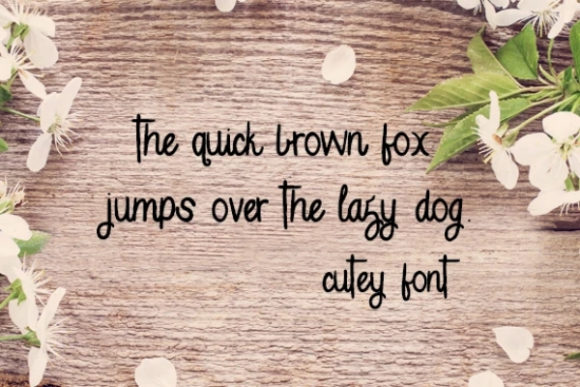
Introducing Cutey Font: Elevate Your Designs with Elegance and Whimsy
Are you a designer or crafter looking for a font that can add a touch of elegance and modernity to your projects? Look no further than Cutey Font, a beautiful handwritten font that is sure to take your designs to the next level. With its unique blend of sophistication and playfulness, Cutey Font is the perfect choice for a wide range of design projects, from branding and headings to wedding designs, invitations, signatures, logos, labels, and more.
The Characteristics of Cutey Font
Cutey Font is an elegant handwritten font with a modern feeling. Its smooth, flowing lines and delicate curves give it a sophisticated and refined look that is perfect for designs that require a touch of luxury and glamour. At the same time, its playful and whimsical feel makes it ideal for designs that need to be fun and engaging. Whether you’re looking to create a bold and eye-catching design or a more subtle and understated one, Cutey Font is the perfect choice.
What Makes Cutey Font So Versatile?
One of the things that sets Cutey Font apart from other fonts is its incredible versatility. Its unique blend of elegance and playfulness makes it suitable for a wide range of design projects, including:
• Branding: Use Cutey Font to create a memorable and impactful brand identity that will set you apart from the competition.
• Headings: Add a touch of elegance and sophistication to your headings and titles with Cutey Font.
• Wedding Designs: Create beautiful and romantic wedding designs, including invitations, programs, and decorations, with Cutey Font.
• Invitations: Use Cutey Font to create stunning and eye-catching invitations for any occasion.
• Signatures: Add a personal touch to your signatures and stationery with Cutey Font.
• Logos: Create a unique and memorable logo for your business or brand with Cutey Font.
• Labels: Use Cutey Font to create beautiful and decorative labels for your products or gifts.
Why Designers and Crafters Love Cutey Font
Designers and crafters love Cutey Font for many reasons. Here are just a few:
• Elegance: Cutey Font adds a touch of elegance and sophistication to any design.
• Versatility: Cutey Font is suitable for a wide range of design projects, making it a great addition to any designer’s toolkit.
• Easy to Read: Cutey Font is clear and easy to read, making it perfect for designs that require a high level of legibility.
• Unique: Cutey Font is a unique and distinctive font that will help your designs stand out from the crowd.
How to Use Cutey Font in Your Designs
Using Cutey Font in your designs is easy. Here are a few tips to get you started:
• Pair it with Other Fonts: Cutey Font looks great when paired with other fonts, such as sans-serif fonts or script fonts.
• Experiment with Different Sizes: Cutey Font can be used at a variety of sizes, from large headings to smaller body text.
• Add Decorations: Consider adding decorations, such as flourishes or swashes, to give your designs an extra touch of elegance.
Cutey Font is a beautiful and versatile font that is perfect for designers and crafters looking to add a touch of elegance and whimsy to their designs. With its unique blend of sophistication and playfulness, Cutey Font is suitable for a wide range of design projects, from branding and headings to wedding designs, invitations, signatures, logos, labels, and more. Whether you’re a professional designer or a crafter looking for a unique font for your projects, Cutey Font is a great choice.